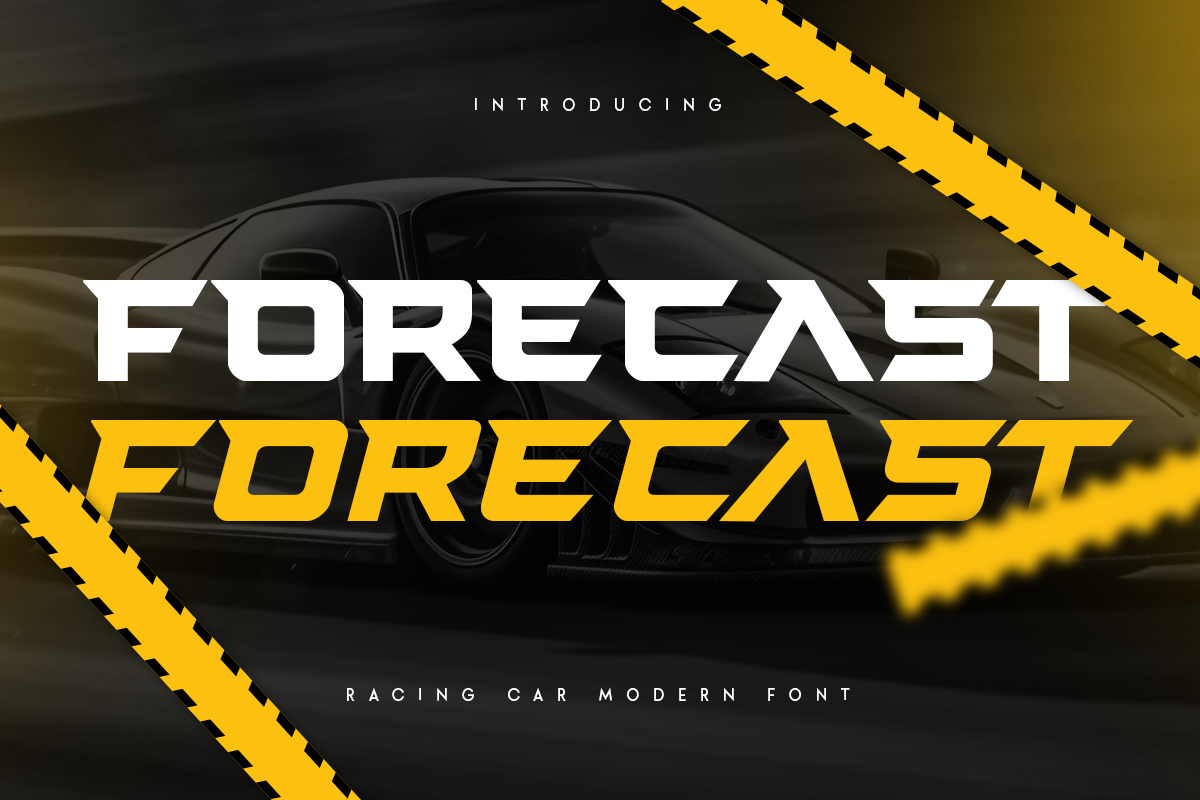
FORECAST - Racing Car Modern Font
FORECAST Racing Car Modern Font is a Modern Logo Racing Font that Modern, Racing and unique characters are ready for Race event, that you can combine to get any variations and unique shapes easily just in seconds with great characters. It is a Sans Serif Bold font with regular and Italic version that perfect for sport branding projects, jersey, logo, wedding designs, social media posts, advertisements, product packaging, product designs, label, watermark, and any projects, it makes with a high level of legibility.
- Character set A-Z
- All Uppercase in Regular & Italic Version